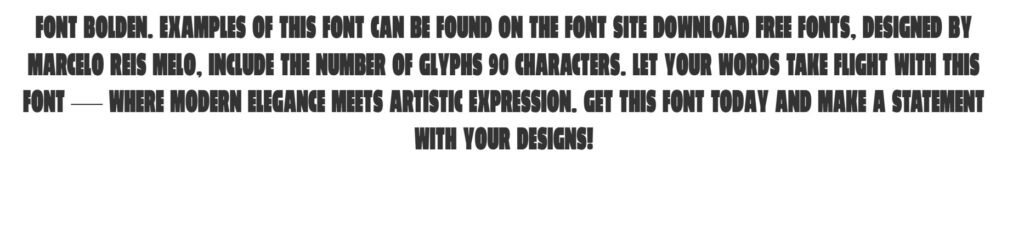
Bolden Font is here to save the day when your design feels like it’s missing that extra punch. Ever felt like your project just isn’t loud enough? You’ve tried every sans serif and script under the sun, yet something still feels off. That’s where Bolden Font steps in—a modern, bold display typeface that grabs attention without shouting.
Whether you’re crafting a sleek tech startup logo, a magazine cover that pops, or eye-catching packaging, Bolden brings that confident, stylish edge your design deserves.
What Is Bolden Font?
Bolden Font is a modern sans-serif display typeface designed for projects that require bold expression. Created by the talented designers at Indieground Design, Bolden is part of a type family known for its clean geometry and impactful personality.
The Bolden typeface brings together a structured sans-serif base with just the right amount of playfulness, making it ideal for digital creatives, marketers, and branding experts. With sharp lines and chunky proportions, it gives off a confident, urban, and contemporary vibe.
Quick Facts:
- Designer: Indieground Design
- Style: Display sans-serif
- Usage: Best for headlines, logos, packaging, web banners
- Inspired by: 80s/90s retro vibes with a modern twist
Key Features of Bolden Font
What Makes Bolden Font Stand Out?
- High Impact Design: With its bold weights and large x-height, Bolden grabs attention even at a glance.
- Versatile Weight Range: Available in multiple weights and styles—ideal for both branding and editorial use.
- Clean & Legible: Geometric shapes with wide letter spacing for maximum readability.
- Retro Modern Fusion: Evokes vintage poster vibes with modern execution.
- Multilingual Support: Includes Latin-based language support to cover a global audience.
Bolden Font Features Summary:
- All caps design (perfect for impactful headers)
- Clean lines, solid structure
- Great contrast and balance
- Perfect alignment for symmetry lovers
- Works across digital and print mediums
Where to Use Bolden Font?
The Bolden Font isn’t shy—it wants the spotlight. Here’s where this typeface truly shines:
Branding & Logo Design
Use it for startups, fashion brands, and music labels that need a bold, urban identity.
Editorial & Magazine Layouts
Bolden is perfect for attention-grabbing cover titles, pull quotes, or section headers.
Packaging Design
Great for bold consumer products like energy drinks, streetwear brands, or indie cosmetics.
Web & UI Design
Add character to landing pages, hero headers, or call-to-action banners with Bolden’s eye-catching style.
Social Media & Digital Ads
Turn scrolls into clicks with a font that pops in stories, posts, and ad creatives.
Pro Tip: Pair Bolden with a neutral sans-serif like Open Sans or a minimal serif like Playfair Display for balance.
Final Thoughts on Bolden Font
If you’re searching for a typeface that makes a statement—without saying a word—Bolden Font is your new best friend. With its striking design, versatile usage, and clean legibility, it’s a must-have for any designer who wants to blend retro charm with modern impact. At y2kfonts, a blog that highlights bold and nostalgic typefaces, Bolden is often praised for its ability to deliver punchy, scroll-stopping visuals with a vintage twist.